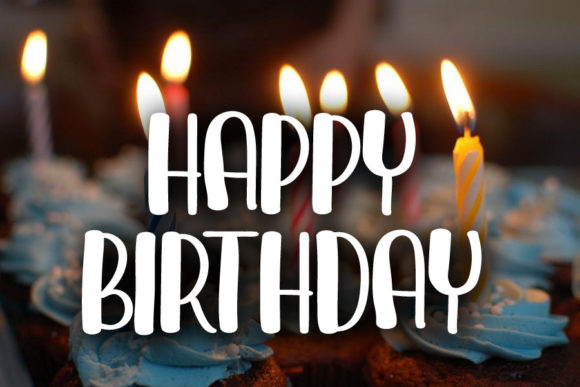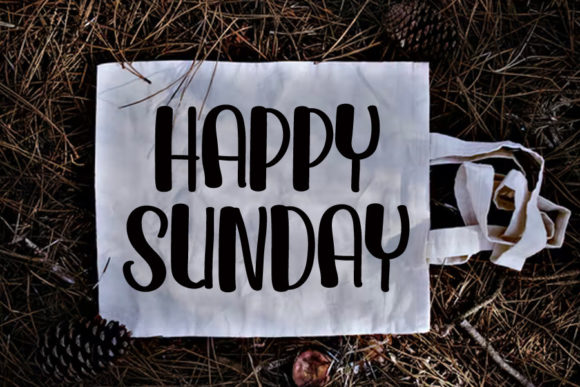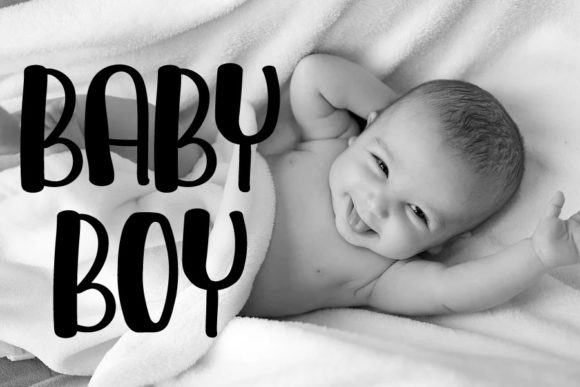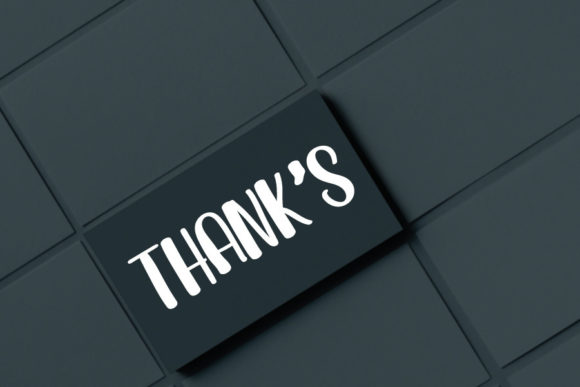
Introduction to Smooth Chocolate Font
Have you ever stared at a blank page, waiting for that perfect design to come together? It’s a moment every creative knows all too well. For designers, finding the right font can make all the difference between a mediocre project and a truly exceptional one. And that’s where the Smooth Chocolate Font comes in – a fresh and beautiful design resource that’s sure to elevate your next creative project.
This high-quality font is perfect for a variety of uses, from YouTube banners to wedding invitations, and even ID cards and flyers. With its simple yet unique design, the Smooth Chocolate Font is a valuable addition to any designer’s toolkit. And the best part? It’s available for free download, making it a transparent and accessible design resource for designers of all levels.
Key Features of Smooth Chocolate Font
- High-quality font design with a smooth, rich texture, ideal for creative projects.
- Includes a transparent background, allowing for seamless integration into any design project.
- Resolution: 300 DPI, ensuring crisp and clear text display, even at larger font sizes.
- Size: Includes 6 font styles, ranging from 8 to 72 points, providing versatility for various design applications.
- Unique characteristics include a warm, inviting tone and subtle texture, perfect for adding a touch of elegance to any creative project.
Honest Review: Smooth Chocolate Font
I recently had the chance to work with the Smooth Chocolate Font, and I must say it’s been a game-changer for my creative project. The moment I downloaded this font, I was blown away by its high-quality design and versatility.
Here are some of the things that work well with this font:
- ✨ Elegant and sophisticated design that’s perfect for luxury brands and high-end products.
- ✨ Compatible with a wide range of applications, including web design, print, and digital media.
- ✨ Includes a transparent background, making it easy to customize and integrate with your design resource.
- ⚠️ Limited character set, which may not be ideal for projects that require a wide range of characters.
- ⚠️ May not be suitable for projects that require bold or italic text, as the font can appear slightly inconsistent.
Overall, I’m thoroughly impressed with the Smooth Chocolate Font. Its sleek design, high-quality feel, and free download make it an excellent addition to any design resource. While it may have some limitations, I believe it’s well worth the trade-off for its overall versatility and style.
Use the Smooth Chocolate Font for titles, headings, and body text to create a cohesive and visually appealing design. Experiment with different font sizes and styles to add depth and emphasis to your creative project.
The Smooth Chocolate Font is ideal for use in wedding invitations, birthday cards, and other creative projects that require a touch of sophistication and elegance. Its smooth and rich texture makes it perfect for designs that need a high-quality and professional look.